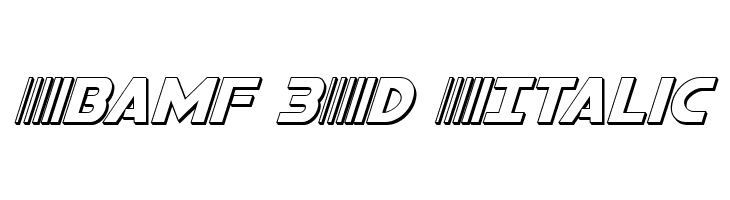
A bold, futuristic font with sharp angles and a geometric design.
A bold, italic font with a dynamic and modern style.
A bold, decorative font with a 3D effect and intricate detailing.
A modern, 3D geometric font with a hollow design and consistent stroke widths.